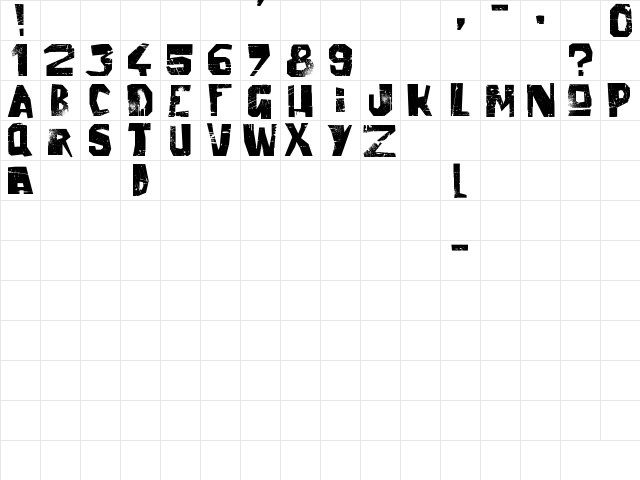
Ballad of Dwight Frye Regular
Design Context for Ballad of Dwight Frye Typeface
Ballad of Dwight Frye is a composed and adaptable typeface that performs quietly and consistently across a wide range of design contexts.